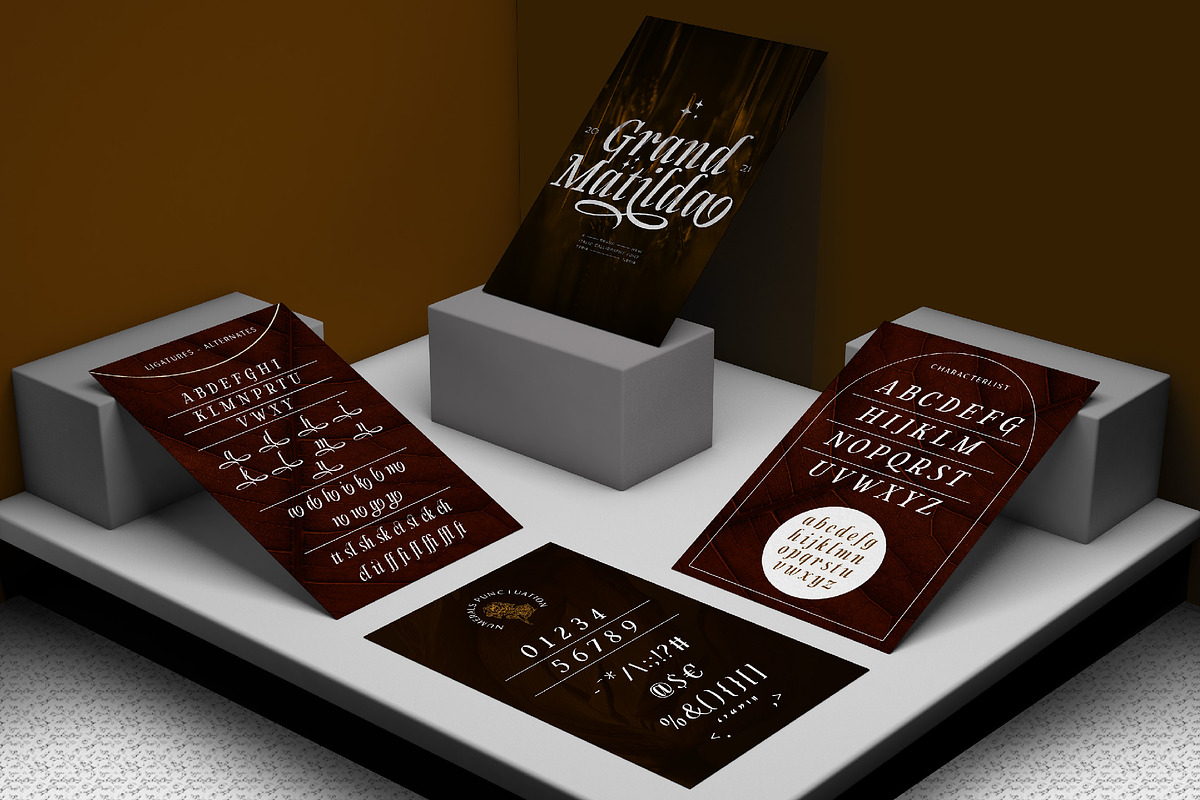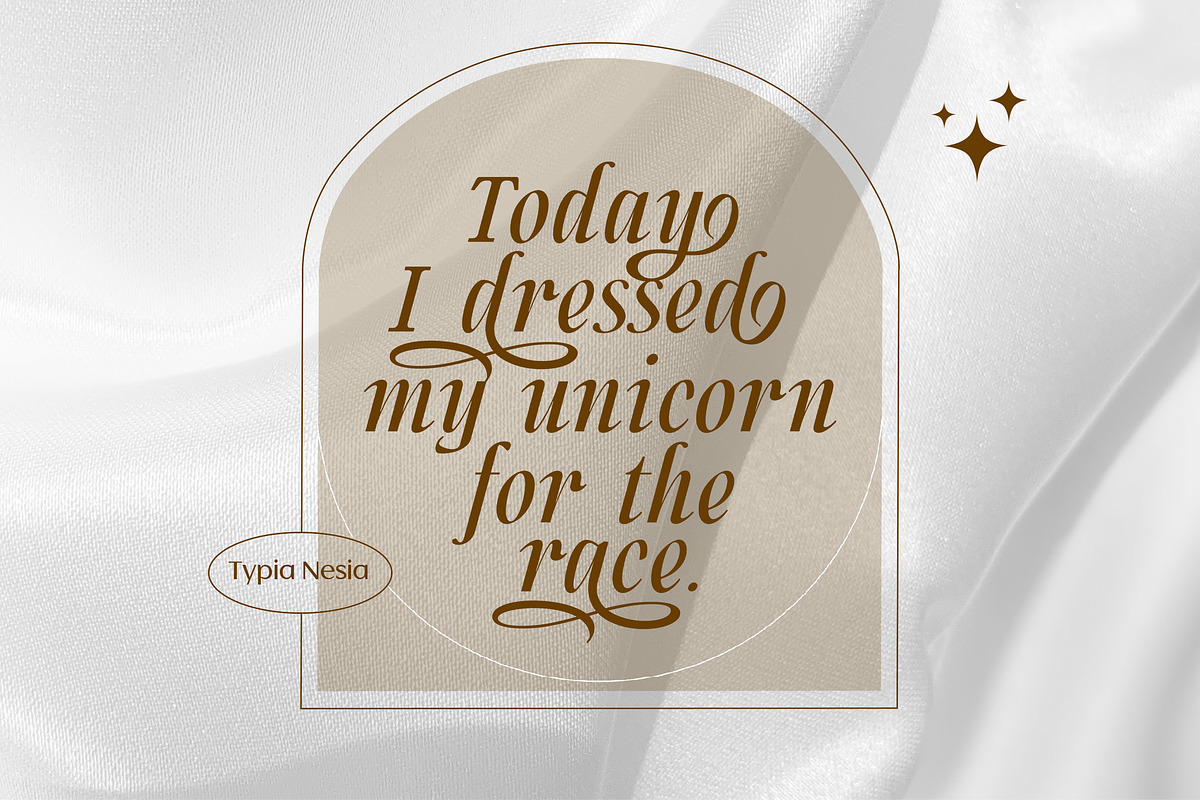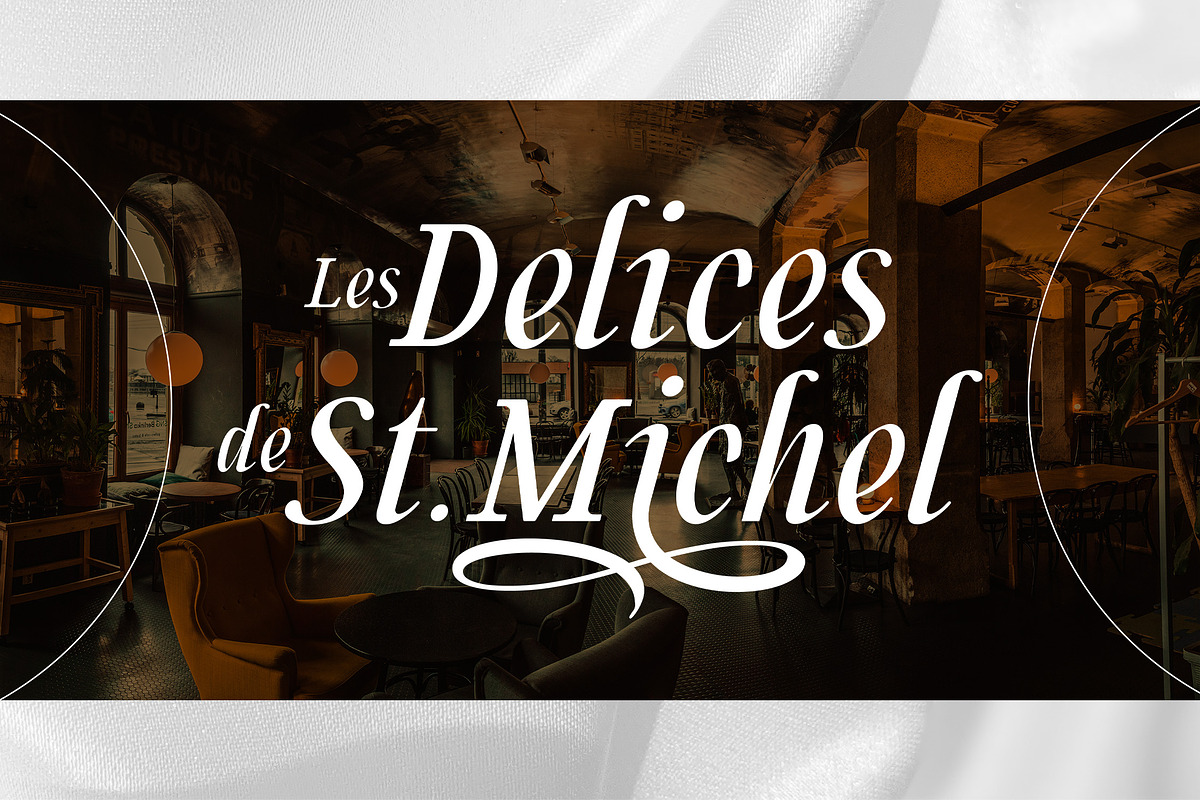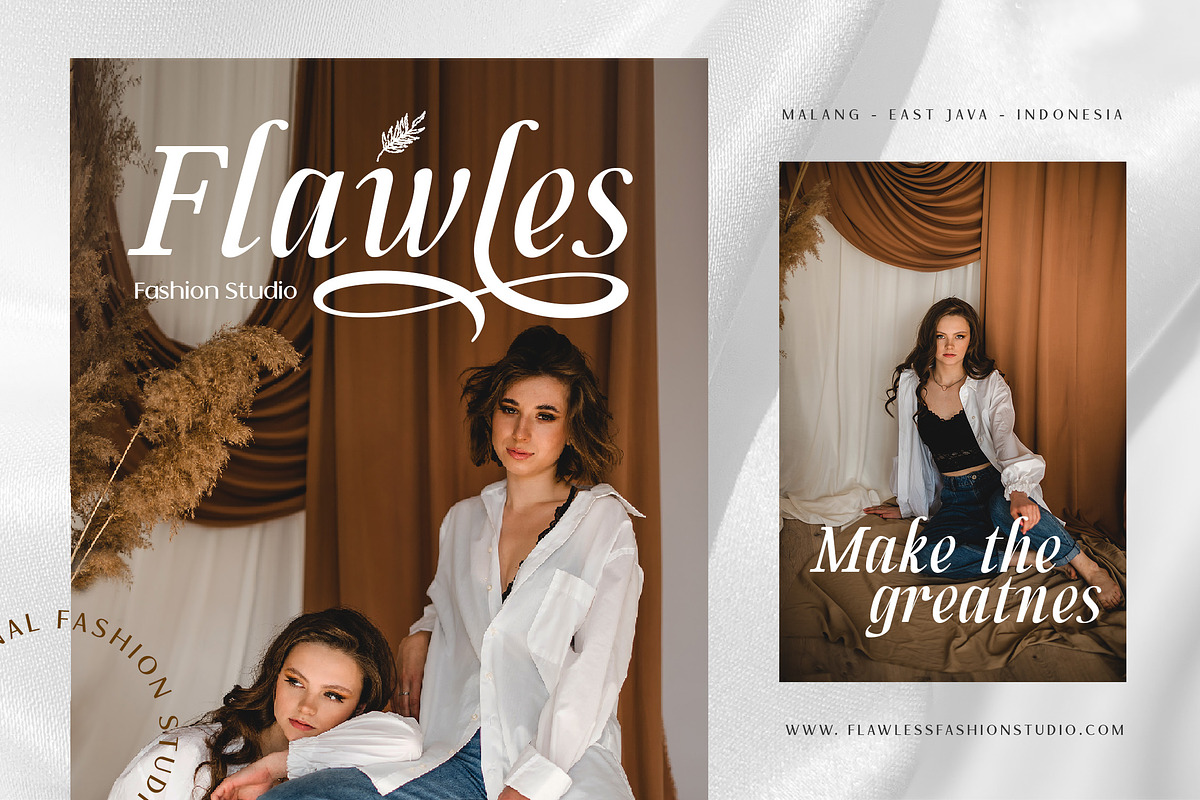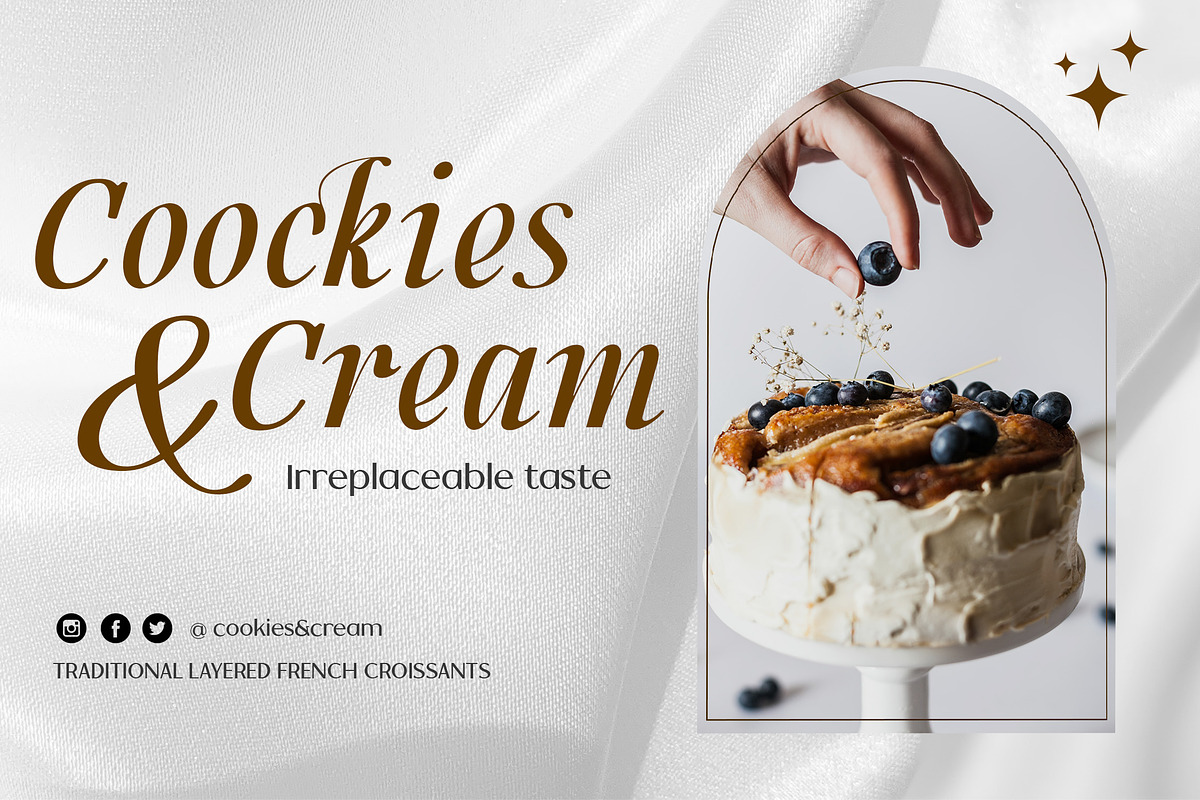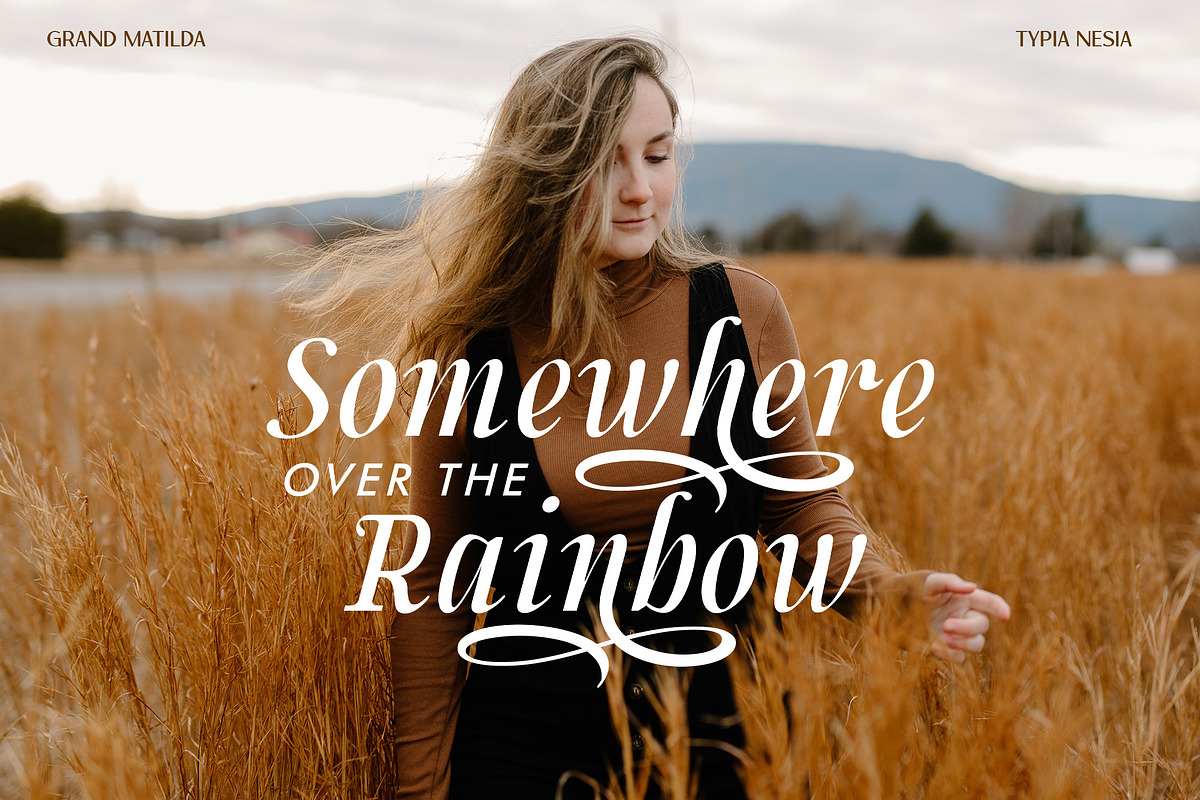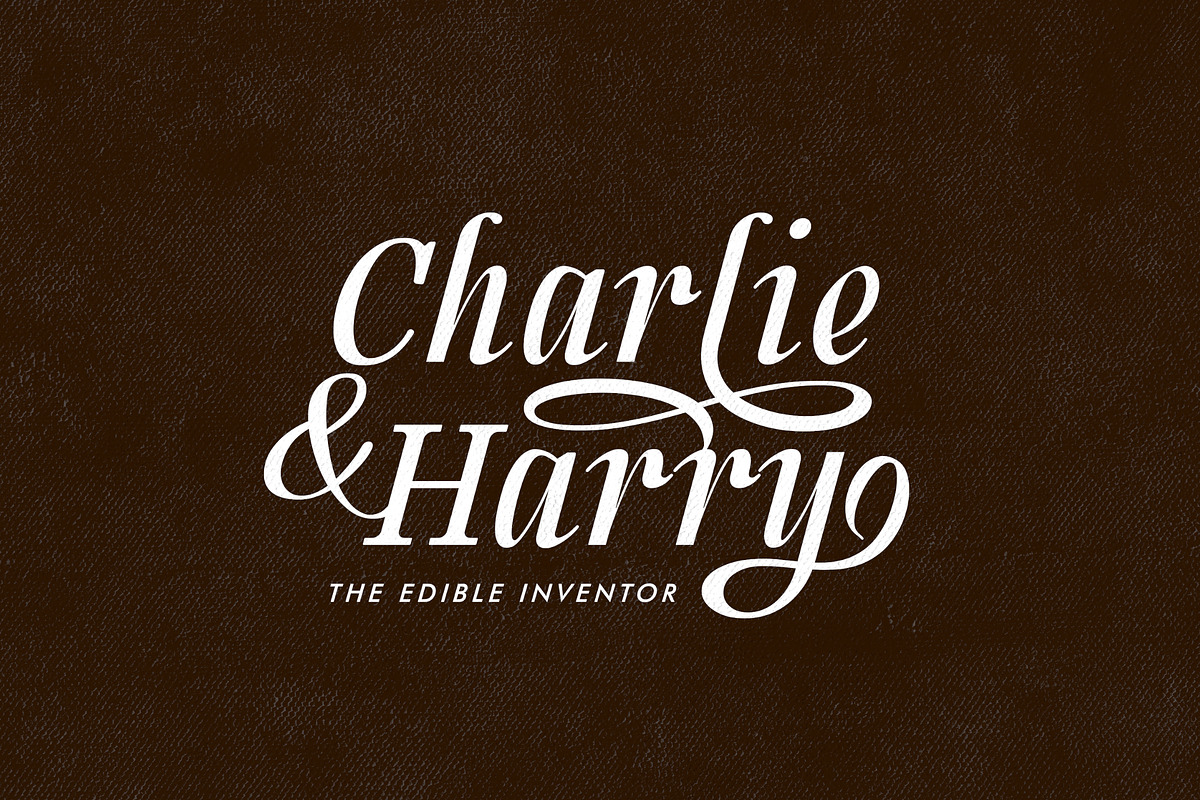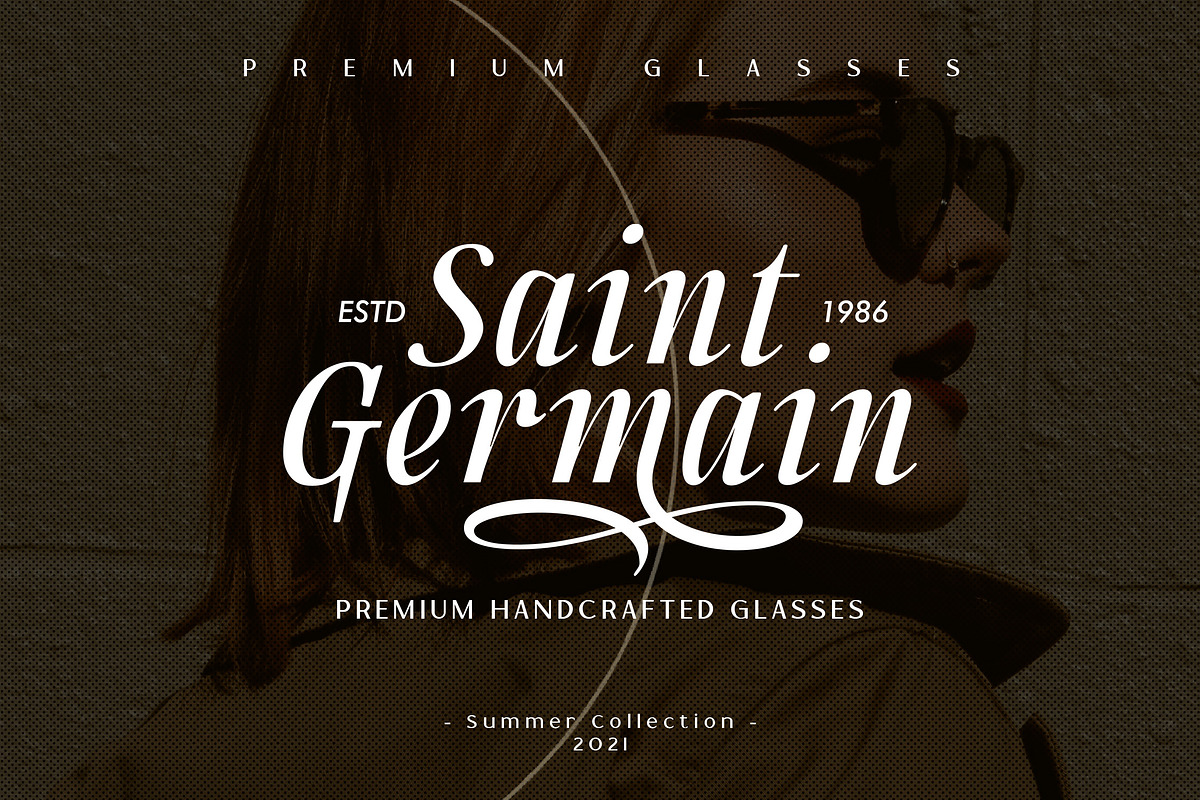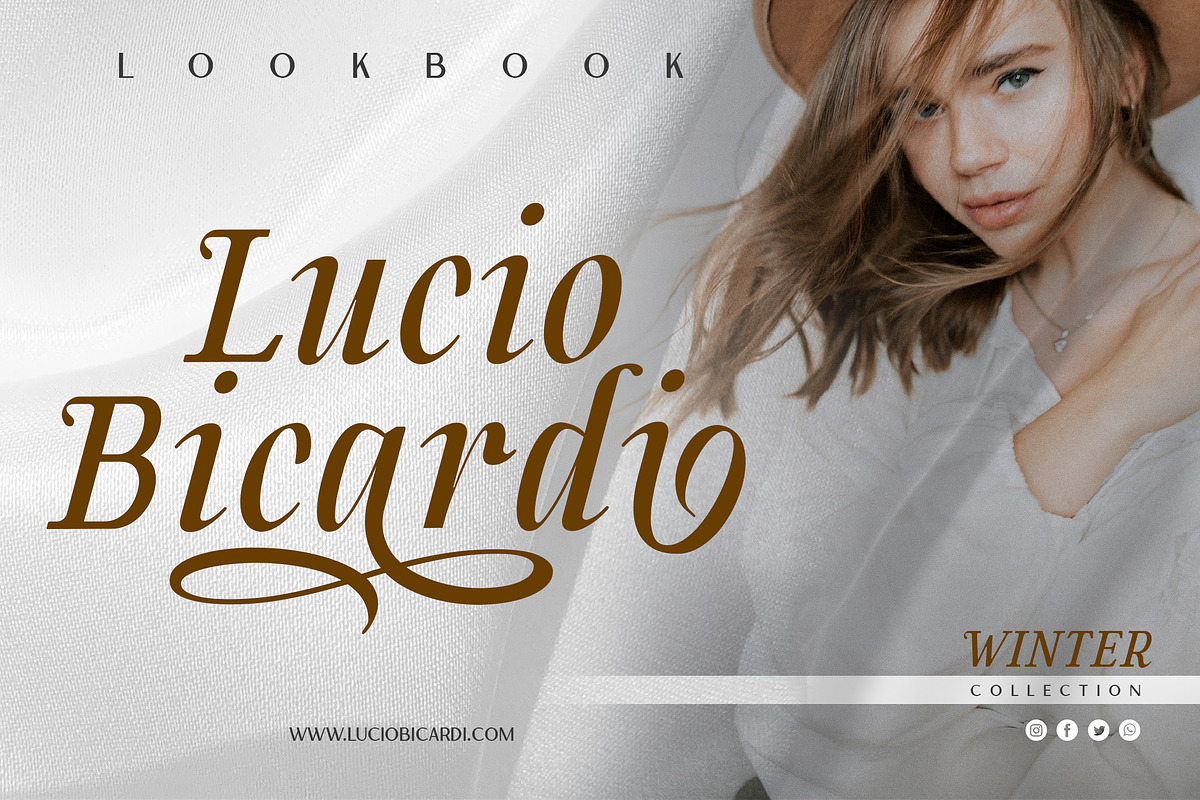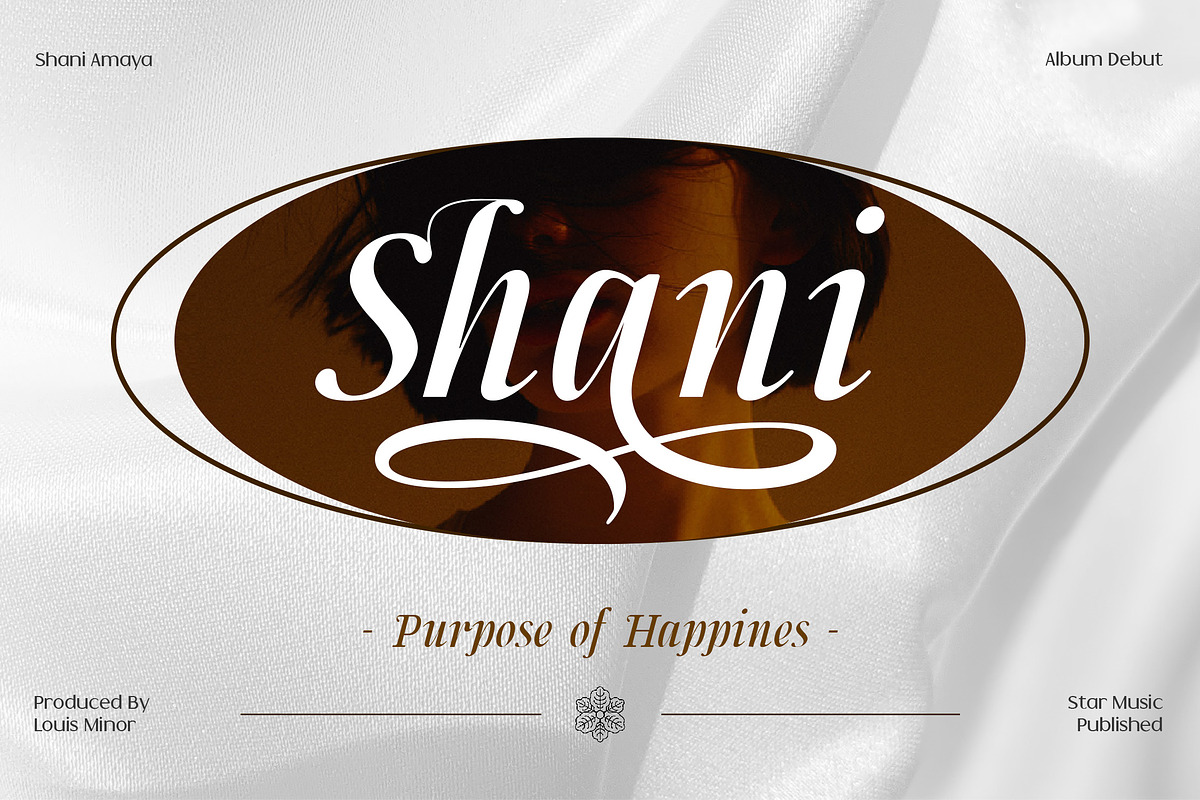
Grand Matilda Italic
Grand Matilda - Real Italic Calligraphy Font
Grand Matilda comes with upper and lowercase Standard Characters, Punctuation, Numerals. And other Glyphs variation of the OpenType features such as Ligature, Alternate and Swash. You can combine it to make a perfect typography design.
It is perfect for your up coming projects. Such as luxury logo and branding, classy editorial design, woman magazine, cosmetic brand, fashion promotional, art gallery branding, museum, historical of architectural, boutique branding, stationery design, blog design, modern advertising design, card invitation, art quote, home decor, book/cover title, special events and any more.